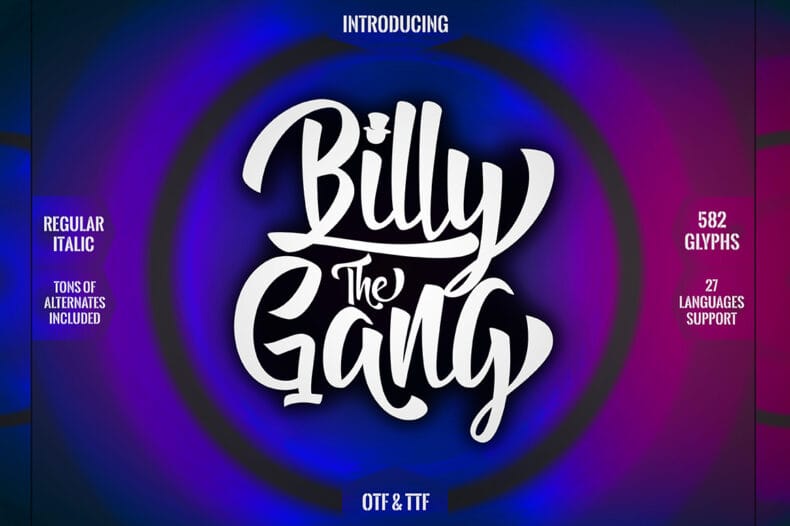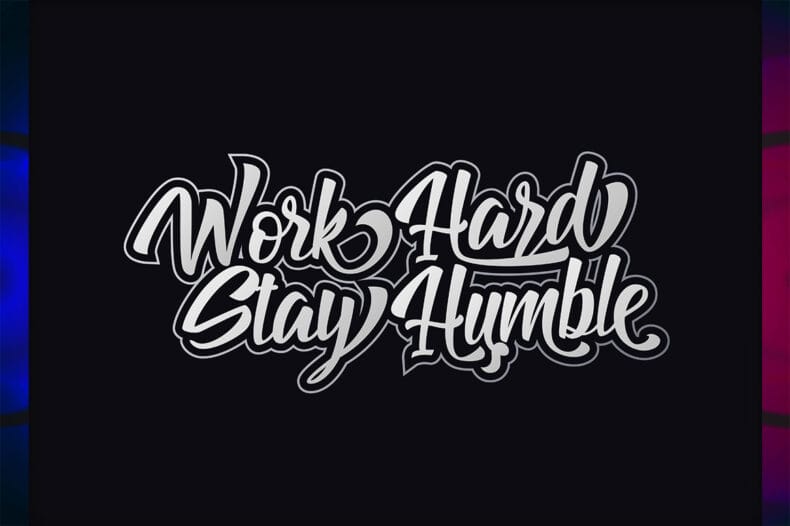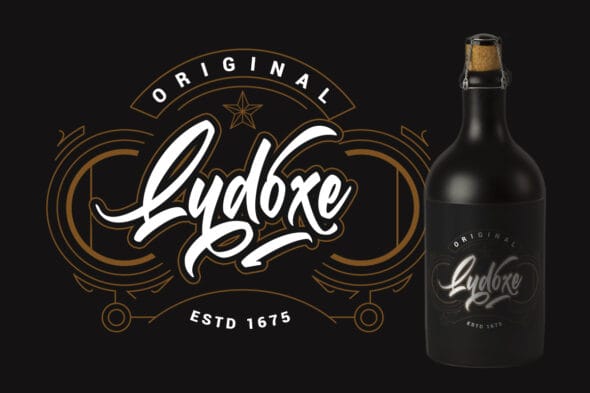
Billy The Gang
Billy The Gang is a stylish handmade font. Inspired by my logotype project I made this font to be suitable for various design projects. Billy The Gang has 582 glyphs include a lot of alternates and swashes, also has 27 languages support.